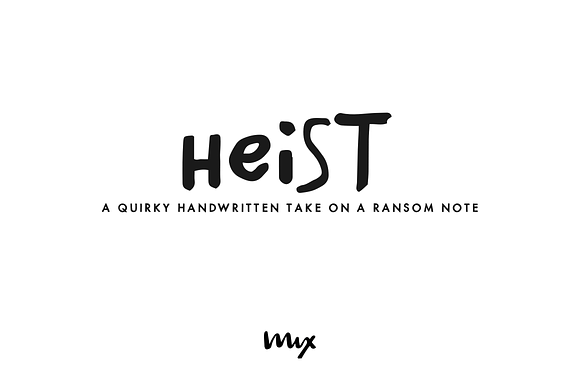
Heist — A Handwritten Take On Ransom
MIX HEIST is a new quirky handwritten take on the classic font Ransom. It’s a mix of both uppercase and lowercase, and a variety of weights and thicknesses..
Note: The lowercase glyphs are the same as the uppercase glyphs.